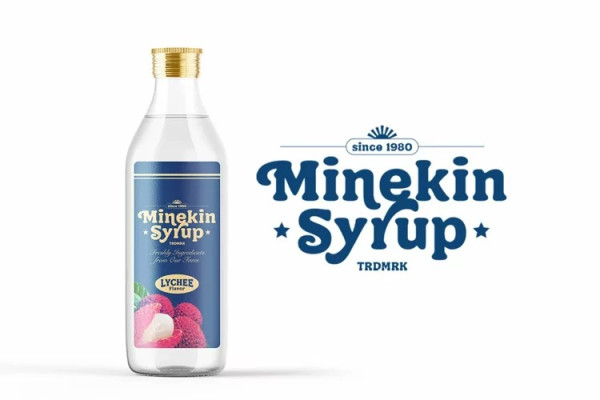
Burning Chiller Font
Burning Chiller Font, a playful typeface that captures the essence of the 90s era. Immerse yourself in its retro charm.
This type of font perfectly made to be applied especially in logo, and the other various formal forms such as invitations, labels, logos, magazines, books, greeting / wedding cards, packaging, fashion, make up, stationery, novels, labels or any type of advertising purpose.